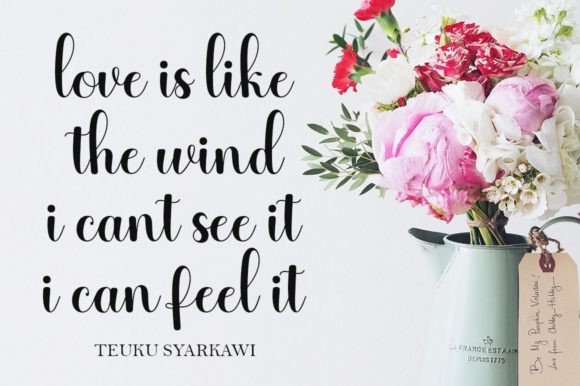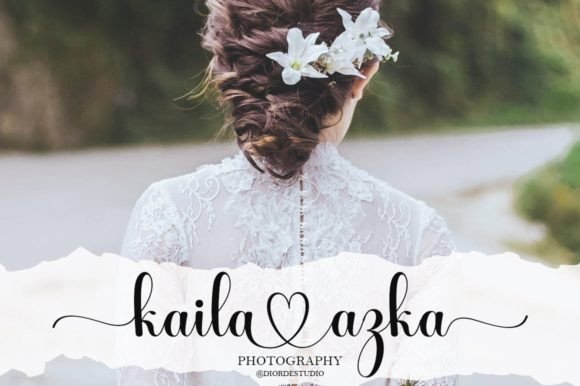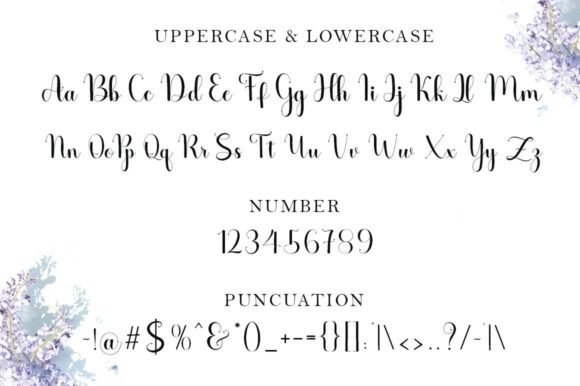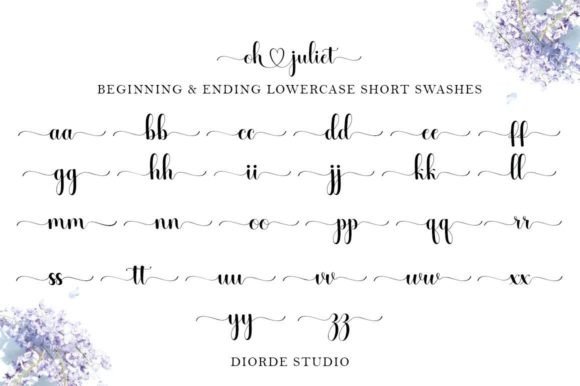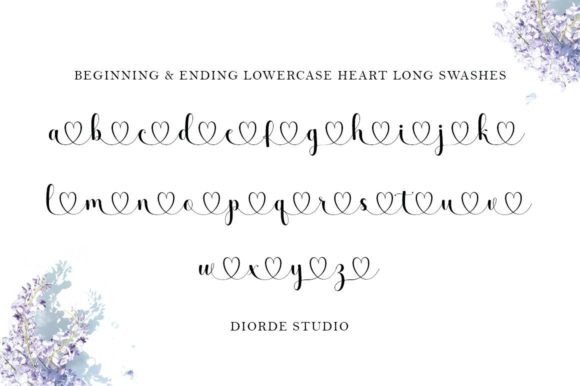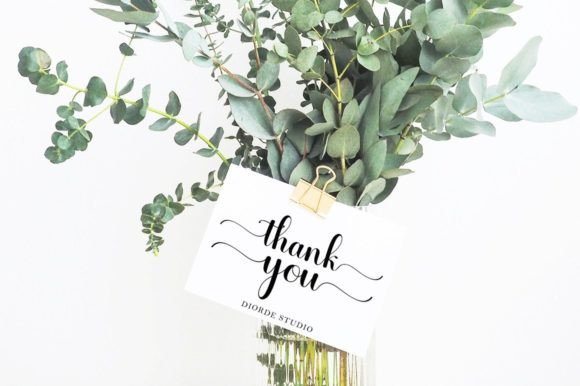
Introduction to Oh Juliet Font
Oh Juliet is a stylish and delicate script font suitable for a wide spectrum of applications.
From greeting cards to headlines, this font will guarantee a romantic touch to each of your creations Oh Juliet is PUA encoded, which means you can access all of the glyphs and swashes with ease.
Key Features of Oh Juliet Font
Why Choose Oh Juliet Font?